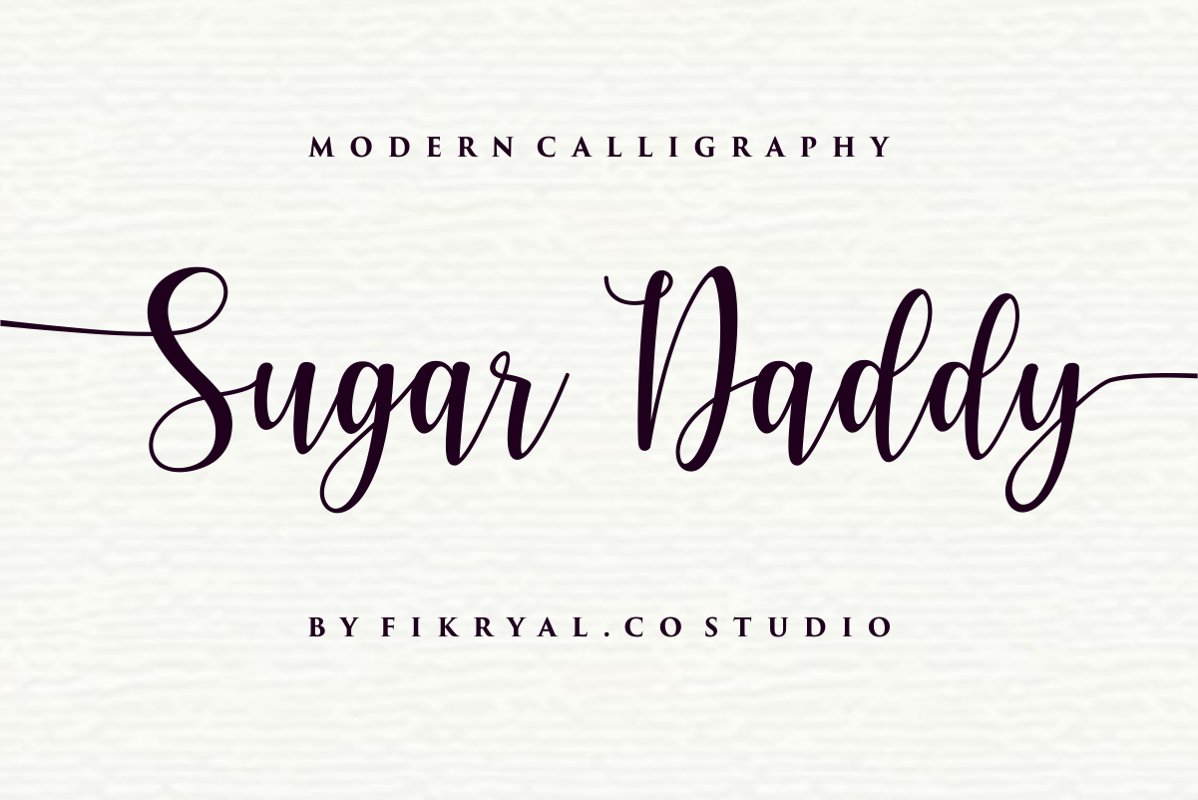
Sugar Daddy - Modern Callighraphy
Sugar Daddy
Sugar Daddy - is a modern calligraphy with beginning and ending swashes font.
This font is made in a modern style with a very beautiful beginning and ending.elegantly,very casual and suitable for your various design needs I'tsPerfect for logo,branding, tittle, social media posts, advertisements, product packaging, product designs, label, photography, watermark, special event,magazine,web design,etc.What's
• salt
• swashes
• ligatures
• ss01
• ss02
• multilingual support
• beginning and ending swashes